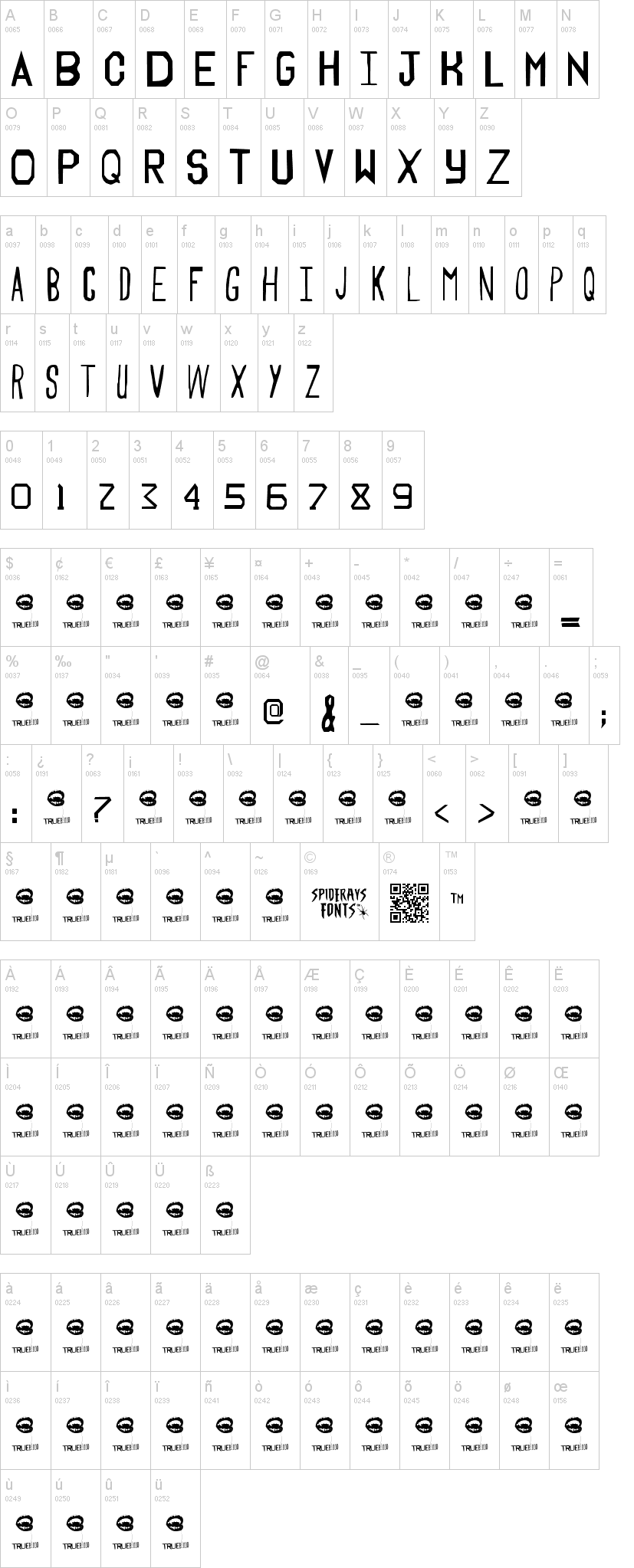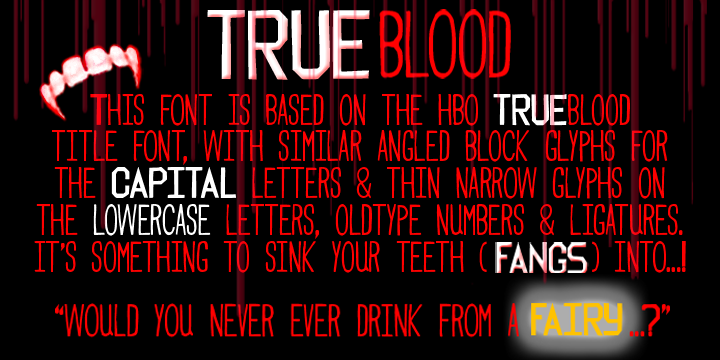
Note of the authorThis is my own version of the TRUE BLADE and TRUE GOTHIC Mixture of fonts used in the TRUEblood series pain-stackingly created from many screen dumps and much artistic flair. If you want the O with the underline then use the comma (,)